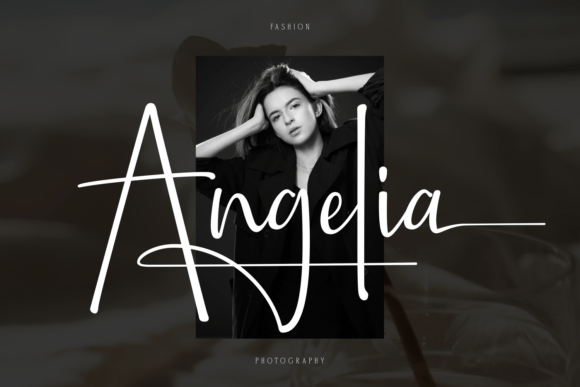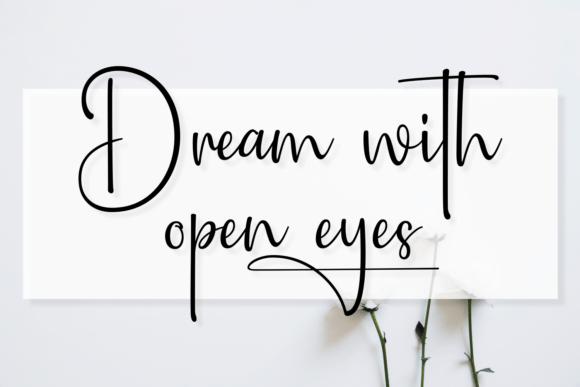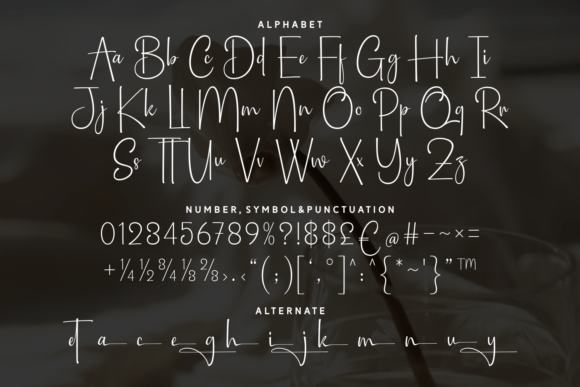
Hagetsi Font: Elevate Your Design with Modern Elegance
In the world of typography, a font can make all the difference in creating a lasting impression. For designers and crafters seeking to add a touch of sophistication to their projects, Hagetsi Font is an exceptional choice. This stunning script font is characterized by its tall, slender lines, dramatic ascenders, and delicate linework, making it perfect for minimalist logos, editorial titles, and luxurious brand identities.
The Essence of Hagetsi Font
Hagetsi Font is a masterclass in modern elegance. Its tall, slender script lines evoke a sense of refinement and poise, while its dramatic ascenders add a touch of drama and flair. The delicate linework that defines this font is both intricate and precise, creating a sense of luxury and sophistication. Whether you’re designing a logo, creating editorial content, or crafting a brand identity, Hagetsi Font is sure to make a statement.
Key Features of Hagetsi Font
- Tall and Slender Lines: Hagetsi Font’s tall, slender lines create a sense of elegance and refinement, making it perfect for designs that require a touch of sophistication.
- Dramatic Ascenders: The dramatic ascenders in Hagetsi Font add a touch of drama and flair, making it ideal for designs that require a sense of luxury and glamour.
- Delicate Linework: The delicate linework that defines Hagetsi Font is both intricate and precise, creating a sense of craftsmanship and attention to detail.
- Modern Elegance: Hagetsi Font exudes modern elegance, making it perfect for designs that require a contemporary and sophisticated look.
Use Cases for Hagetsi Font
Hagetsi Font is a versatile font that can be used in a variety of design applications. Here are some use cases where Hagetsi Font truly shines:
- Minimalist Logos: Hagetsi Font’s tall, slender lines and delicate linework make it perfect for minimalist logos that require a touch of elegance and sophistication.
- Editorial Titles: The dramatic ascenders and modern elegance of Hagetsi Font make it ideal for editorial titles that require a sense of luxury and glamour.
- Luxurious Brand Identities: Hagetsi Font’s sophisticated and refined aesthetic make it perfect for luxurious brand identities that require a sense of high-end quality and craftsmanship.
Tips for Using Hagetsi Font
To get the most out of Hagetsi Font, here are some tips to keep in mind:
- Use it Sparingly: Hagetsi Font’s dramatic ascenders and delicate linework make it a font that should be used sparingly. Use it to create a statement piece, and then pair it with a more straightforward font for body text.
- Experiment with Font Sizes: Hagetsi Font’s tall, slender lines make it perfect for use at large font sizes. Experiment with different font sizes to create visual interest and hierarchy in your design.
- Pair it with Neutral Colors: Hagetsi Font’s modern elegance makes it perfect for use with neutral colors like black, white, and gray. Pair it with a bold color to create contrast and visual interest.
Hagetsi Font is a stunning script font that exudes modern elegance. With its tall, slender lines, dramatic ascenders, and delicate linework, it’s perfect for designers and crafters seeking to add a touch of sophistication to their projects. Whether you’re designing a logo, creating editorial content, or crafting a brand identity, Hagetsi Font is sure to make a statement. So why wait? Download Hagetsi Font today and elevate your design to new heights!